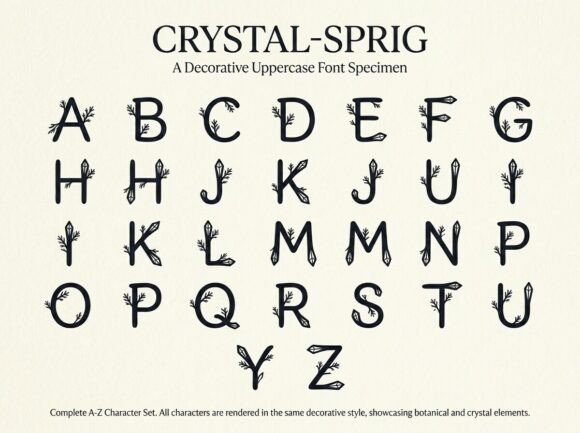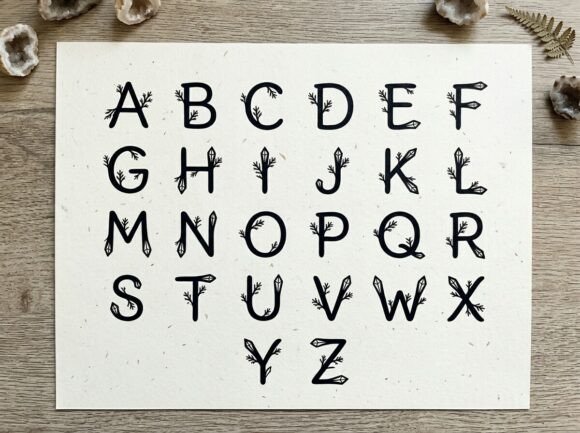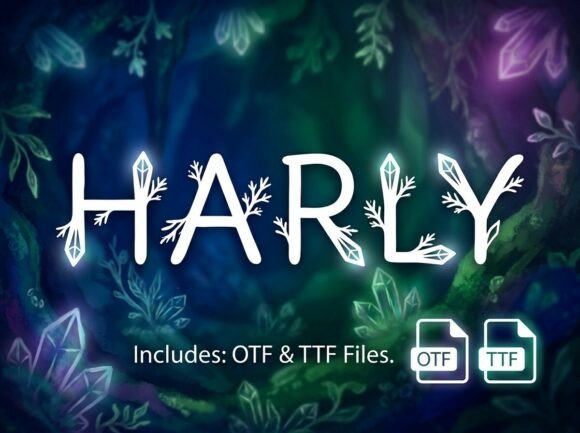
Introducing Harly Font: A Stunning Decorative Display Font
Are you tired of using the same old fonts for your designs? Look no further than Harly Font, a unique and artistic display font that’s sure to turn heads. With its strong visual personality and decorative elements, Harly Font is perfect for creators who want to add a touch of elegance and sophistication to their work.
What Makes Harly Font Special?
Harly Font is a decorative display font designed to be the center of attention. Its unique artistic elements and strong visual personality make it perfect for bold headlines, artistic logos, and creative packaging. Whether you’re a designer, crafters, or DIY enthusiast, Harly Font is a versatile font that can add a professional and polished finish to your work.
Key Features of Harly Font
- ALL-CAPS (Uppercase Only) Display Typeface: Harly Font is specifically designed for high-impact headlines, logos, and decorative initials where every letter is a work of art. Please note that it does not include lowercase letters.
Harly Font is a dream come true for designers and crafters who want to add a personal touch to their work. With its stunning decorative elements and strong visual personality, Harly Font can be used for a variety of projects, including:
- Bold Headlines: Make a statement with Harly Font’s unique and artistic letters.
- Artistic Logos: Create a lasting impression with Harly Font’s decorative and elegant style.
- Creative Packaging: Add a touch of sophistication to your packaging with Harly Font’s professional and polished finish.
Why Choose Harly Font?
With so many fonts available, why choose Harly Font? Here are just a few reasons:
- Unique and Artistic: Harly Font is a one-of-a-kind font that’s sure to stand out from the crowd.
- Versatile: Harly Font can be used for a variety of projects, from bold headlines to artistic logos and creative packaging.
- Professional and Polished: Harly Font’s elegant style and decorative elements make it perfect for projects that require a touch of sophistication.
- Experiment with Different Sizes: Harly Font looks great in large sizes, but it can also be used for smaller projects. Experiment with different sizes to find the perfect fit for your project.
- Pair with Other Fonts: Harly Font can be paired with other fonts to create a unique and interesting look. Try pairing it with a clean and simple font for a bold and eye-catching combination.
Harly Font is a stunning decorative display font that’s perfect for designers and crafters who want to add a touch of elegance and sophistication to their work. With its unique artistic elements, strong visual personality, and versatile design, Harly Font is sure to turn heads. So why wait? Download Harly Font today and take your designs to the next level!